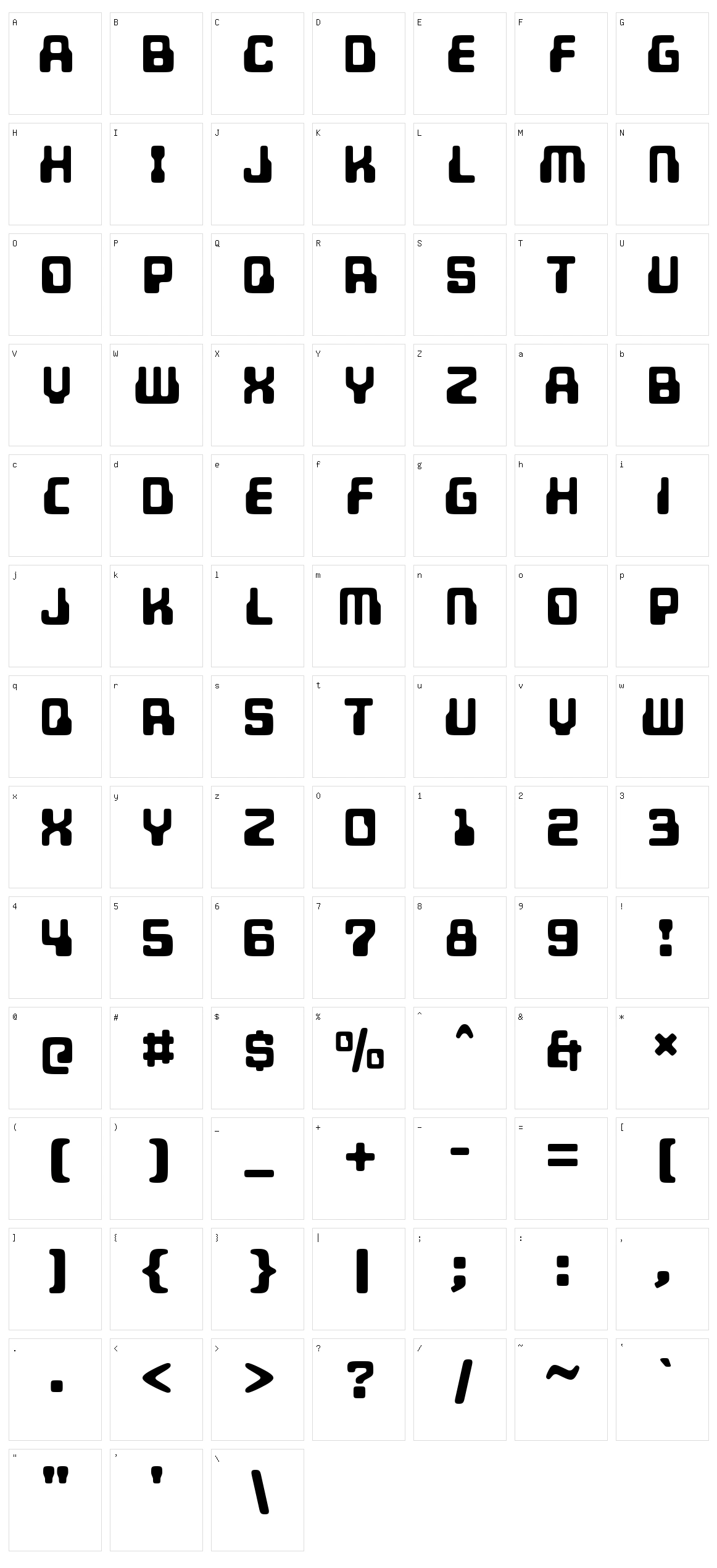
Unicephalon
Designed by: Disaster Fonts
Don't forget about the different forms (c, i, m, s, w) in the lower case.
Created 2016 by Andrew Young, Disaster Fonts.